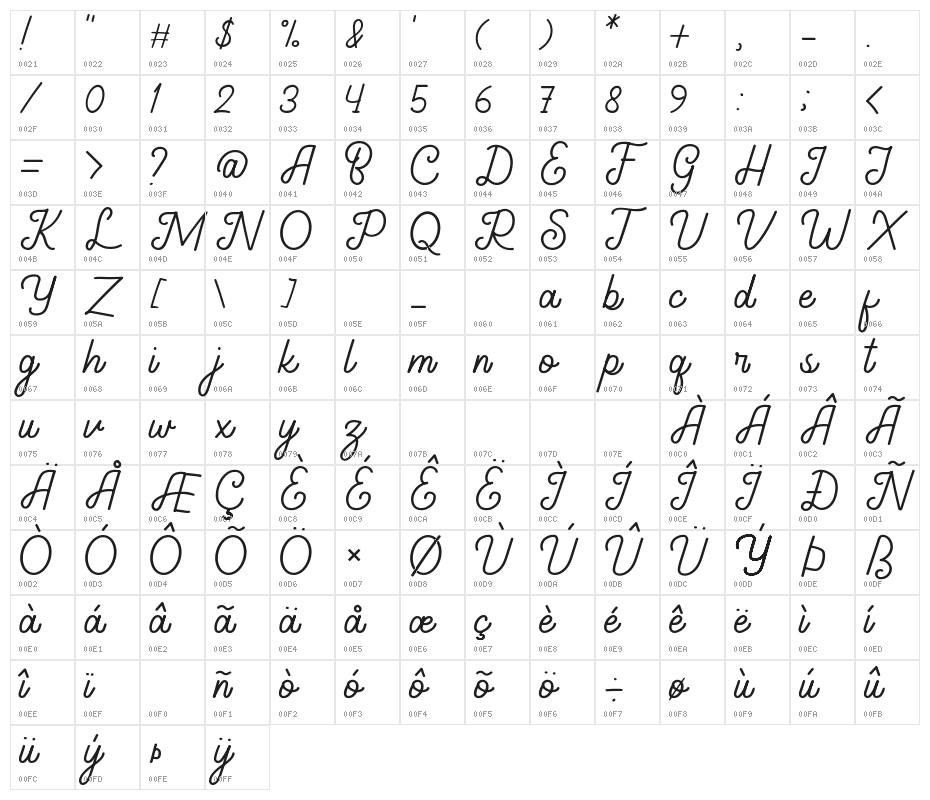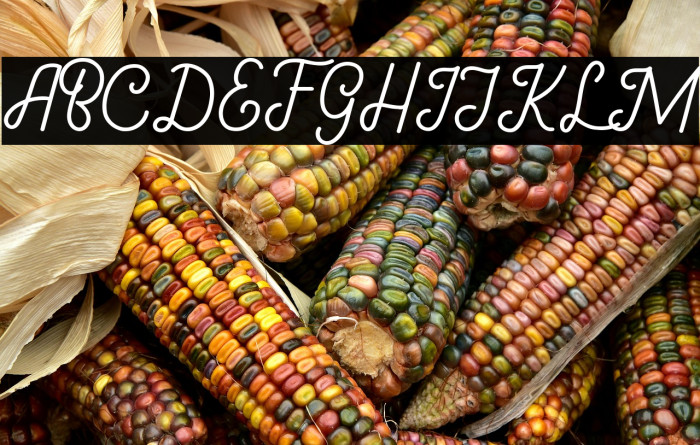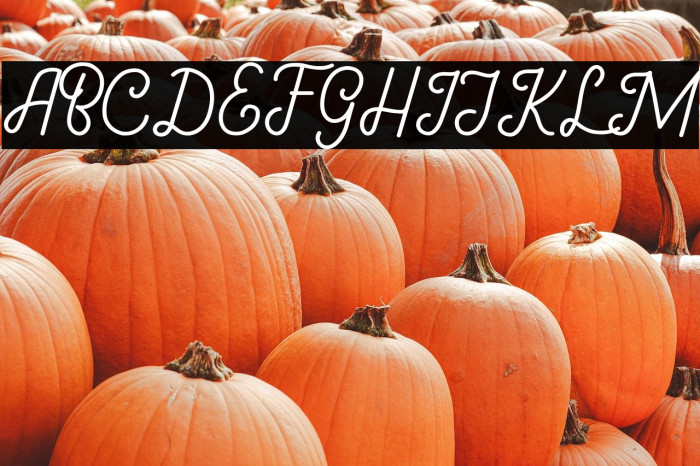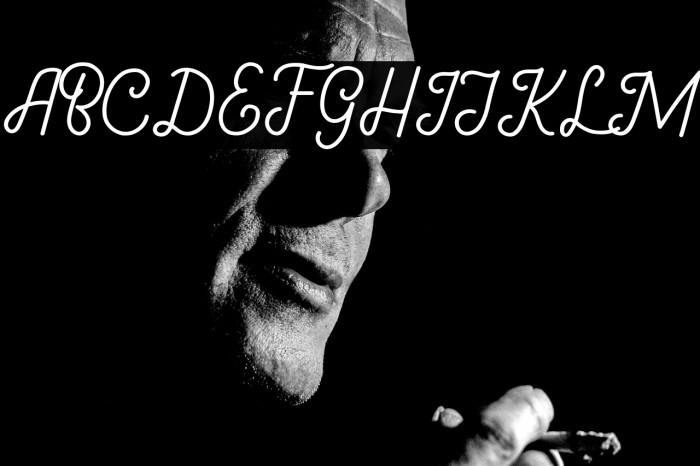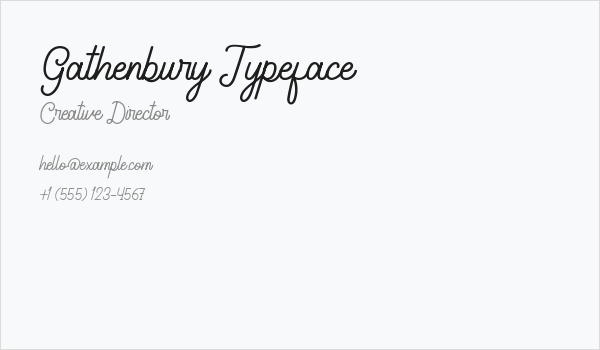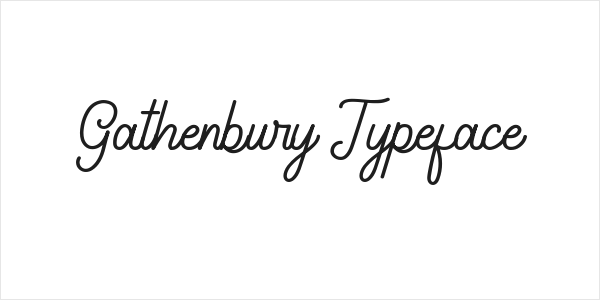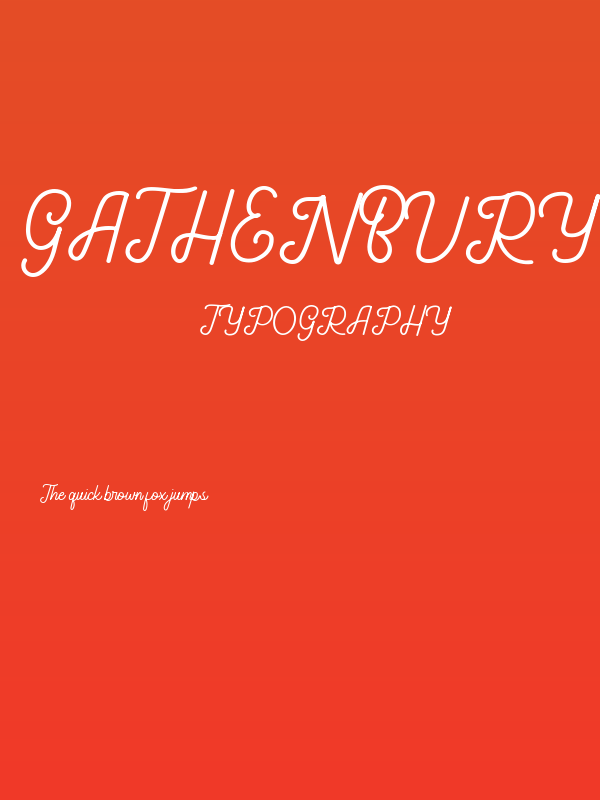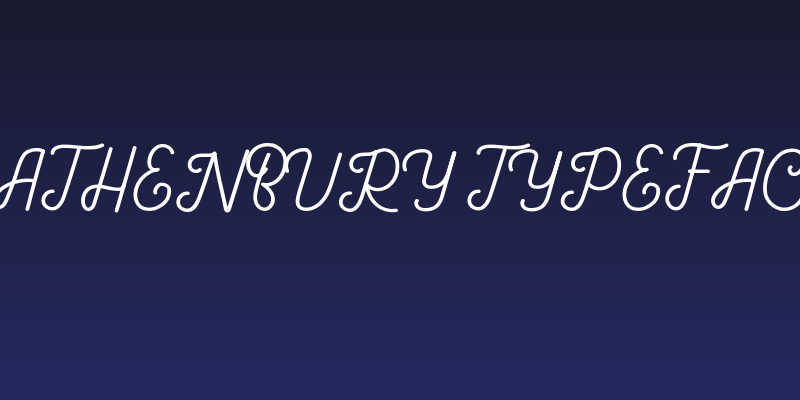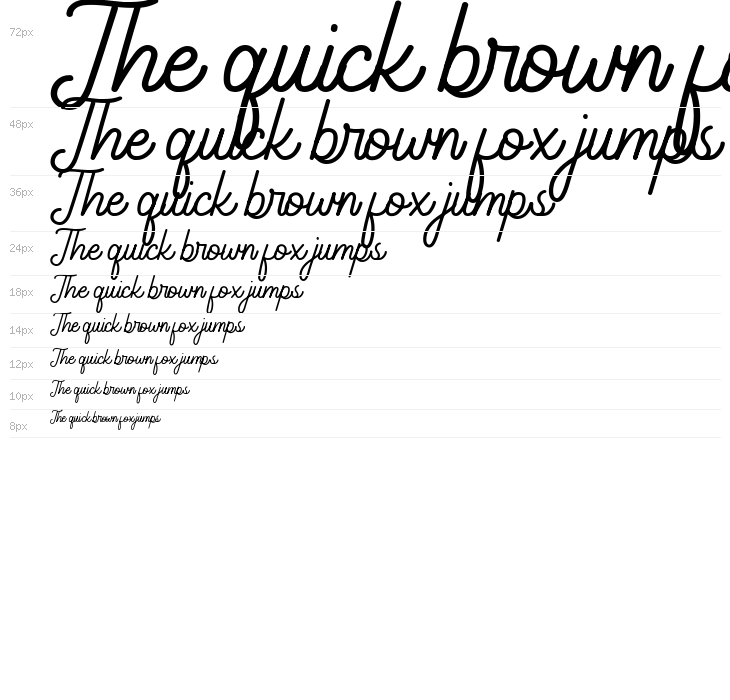
Gathenbury Typeface Font
Gathenbury Typeface Description
This typeface features a flowing, cursive style with elegant loops and swashes, creating a sense of movement and grace. The uppercase letters are slightly more ornate, with extended strokes and flourishes, while the lowercase letters maintain a consistent, smooth flow. The numerals and special characters are designed to complement the overall script style, ensuring a cohesive look across all text. The font's design is both classic and versatile, making it suitable for a variety of applications.
| Proposed Projects | Ideal for wedding invitations, greeting cards, branding, and elegant packaging designs. |